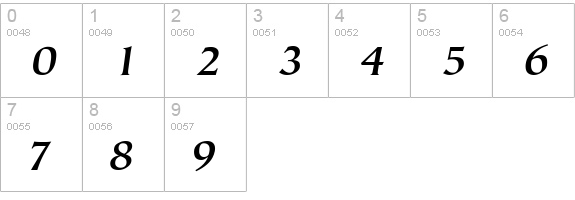
Tiepolo Bold Italic is a strong, high-contrast, italic variant in the Tiepolo typeface family \xE2\x80\x94 well suited to headlines, attention-grabbing titles, and strong calls-to-action.
Tiepolo Bold Italic is a mesmerizing typeface that seamlessly blends elegance with boldness. With its distinct slanted and weighty characters, this font exudes confidence and sophistication. Each letter is meticulously crafted, featuring delicate curves and strong strokes that create a harmonious balance. This font is perfect for those looking to make a statement with their designs. Whether it's for a logo, branding materials, or headlines, Tiepolo Bold Italic will surely captivate the attention of viewers. Its unique italicized style adds a touch of dynamism and flair, making it an ideal choice for projects that require a touch of creativity. One of the best features of Tiepolo Bold Italic is that it is freely available to download at FontsMarket.com. This means that you can easily access and utilize this font in your projects without any restrictions. Its availability ensures that designers and creatives can explore its versatility and unleash their imagination without any constraints. Tiepolo Bold Italic is a font that effortlessly combines modernity and classic appeal, making it a timeless choice for various design projects. Its versatility allows it to seamlessly adapt to different styles and themes, making it a go-to option for designers seeking a font that can elevate their work to new heights. So, whether you're designing a striking poster, creating eye-catching advertisements, or crafting a memorable website, Tiepolo Bold Italic is the font that will effortlessly elevate your visuals. Its bold and italicized characteristics, combined with its availability as a free download, make it a must-have addition to your font collection.